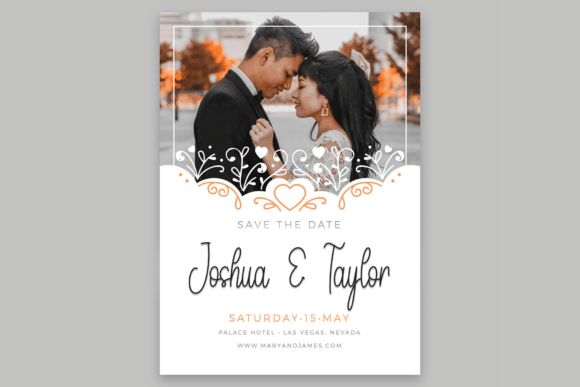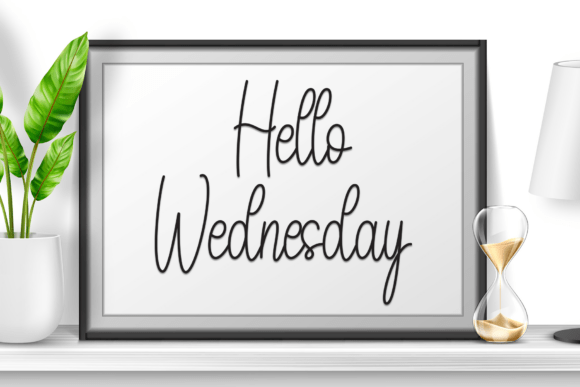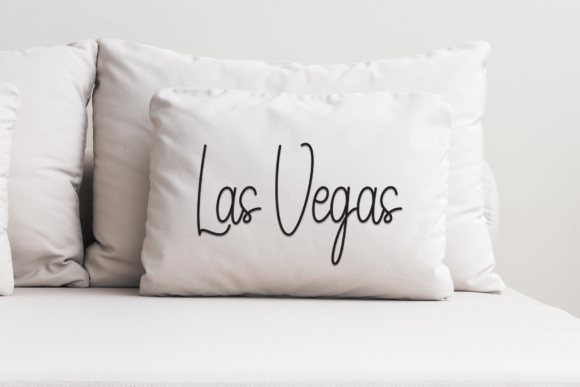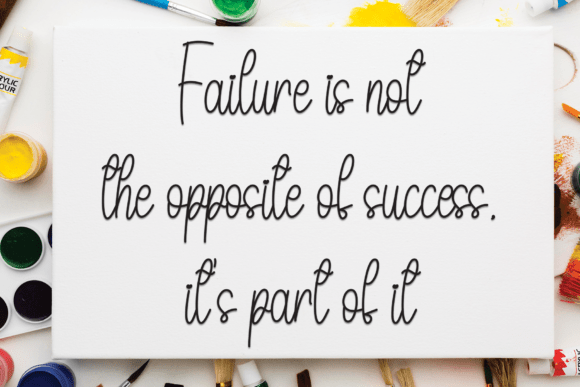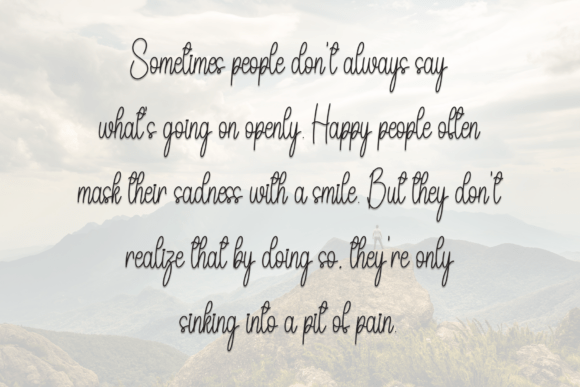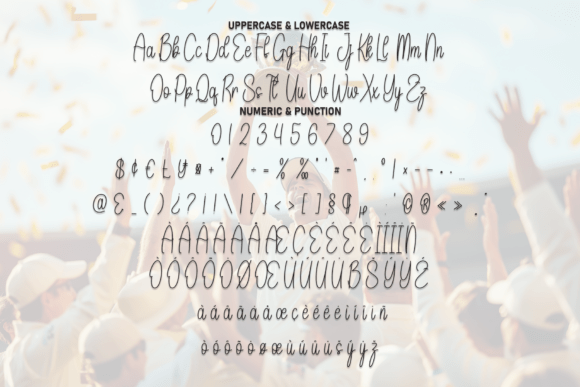
Introducing Champions Font: The Epitome of Elegance and Whimsy
Are you on the hunt for a display font that exudes warmth, sincerity, and a touch of magic? Look no further than Champions Font, a meticulously handcrafted typographic marvel that is sure to elevate your design endeavors to new heights. This original font is a harmonious fusion of elegance and playfulness, making it the perfect choice for a wide range of creative projects, from wedding invitations and greeting cards to festive posters and more.
A Font that Embodies Refined Festivity
Champions Font is designed to bring a sense of joy and celebration to your designs. Its unique blend of classic sophistication and modern whimsy makes it an ideal choice for any project that requires a touch of refinement and festivity. Whether you’re a designer, crafter, or DIY enthusiast, this font is sure to inspire your creativity and help you create stunning works of art.
What Sets Champions Font Apart
So, what makes Champions Font so special? For starters, its handcrafted design ensures that every letter, curve, and flourish is carefully crafted to perfection. This attention to detail gives the font a unique personality that is both captivating and charming. Additionally, the font’s curious quirks and fanciful flourishes add a touch of playfulness and imagination to your designs, making them truly one-of-a-kind.
Perfect for Elegant Wedding Invitations and Greeting Cards
Champions Font is particularly well-suited for elegant wedding invitations, heartfelt greeting cards, and other special occasion designs. Its refined and sophisticated aesthetic ensures that your designs will be taken seriously, while its whimsical touches add a touch of romance and personality. Whether you’re designing for a client or creating something special for yourself, this font is sure to impress.
Bringing Your Creative Perspectives to Life
Champions Font is more than just a collection of letters and symbols – it’s a tool for bringing your creative perspectives to life. With its help, you can transform your ideas into radiant masterpieces that spark imagination and delight. Whether you’re a seasoned designer or just starting out, this font is sure to inspire you to new creative heights.
Key Features of Champions Font
- Meticulously handcrafted design for a unique and charming aesthetic
- Harmonious fusion of elegance and playfulness
- Curious quirks and fanciful flourishes for added whimsy and imagination
- Perfect for elegant wedding invitations, greeting cards, and other special occasion designs
- Suitable for a wide range of creative projects, from posters and flyers to social media graphics and more
Why Choose Champions Font?
When it comes to choosing a font for your next design project, there are many options to consider. However, Champions Font stands out from the crowd for several reasons. For starters, its unique blend of elegance and whimsy makes it a versatile choice that can be used in a wide range of creative contexts. Additionally, its handcrafted design ensures that every letter and symbol is carefully crafted to perfection, giving your designs a level of sophistication and refinement that’s hard to find elsewhere.
In conclusion, Champions Font is a true typographic marvel that is sure to captivate and inspire designers and crafters alike. Its unique blend of elegance, whimsy, and imagination makes it the perfect choice for any design project that requires a touch of refinement and festivity. Whether you’re designing for a client or creating something special for yourself, this font is sure to help you create stunning works of art that will leave a lasting impression.